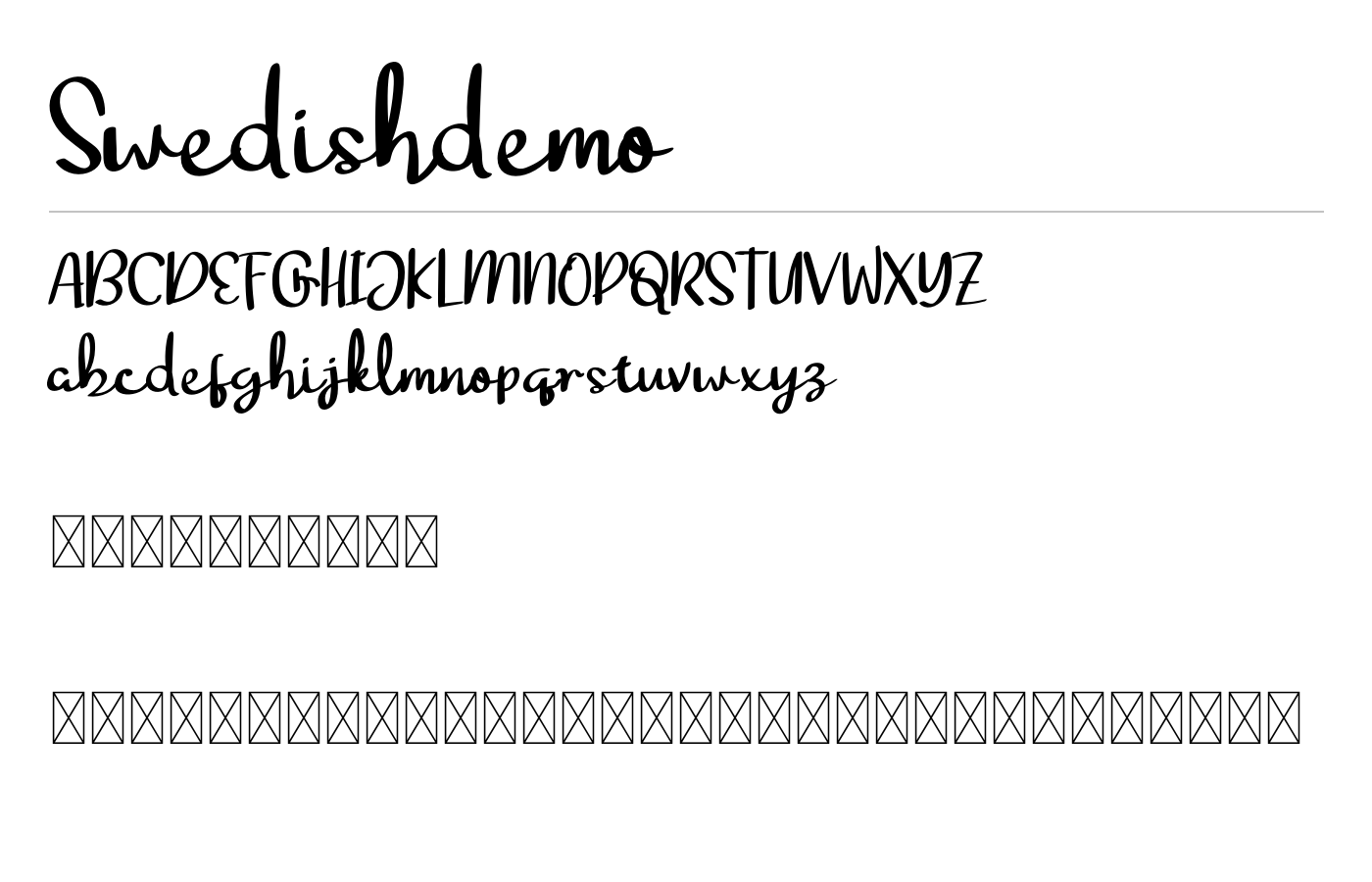
Swedish Font is a playful and casual handwritten script that features smooth, flowing strokes with a slightly varied weight, giving it a lively and personal touch. Its tall x-height and lively letterforms create an approachable, friendly vibe perfect for informal branding, invitations, and creative projects where warmth and personality are key. This font works best in headlines, logos, and designs that benefit from a relaxed, handwritten feel.
Swedish Font